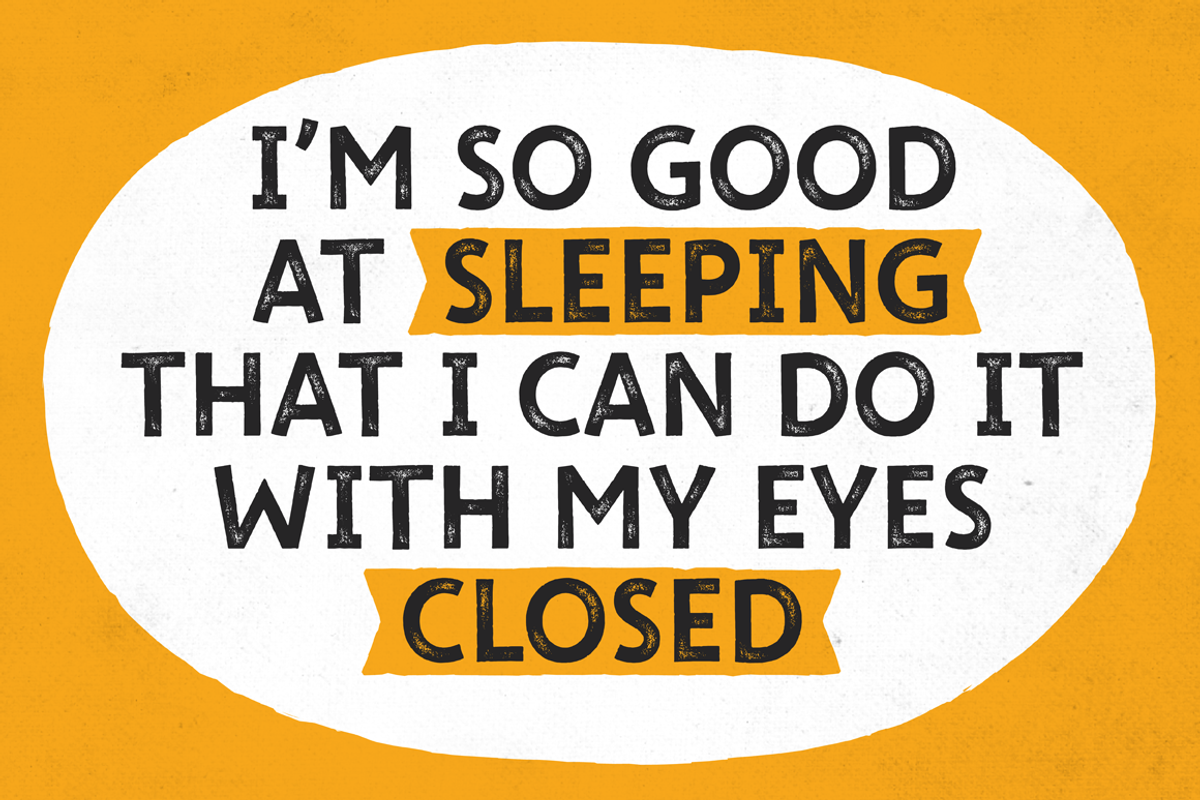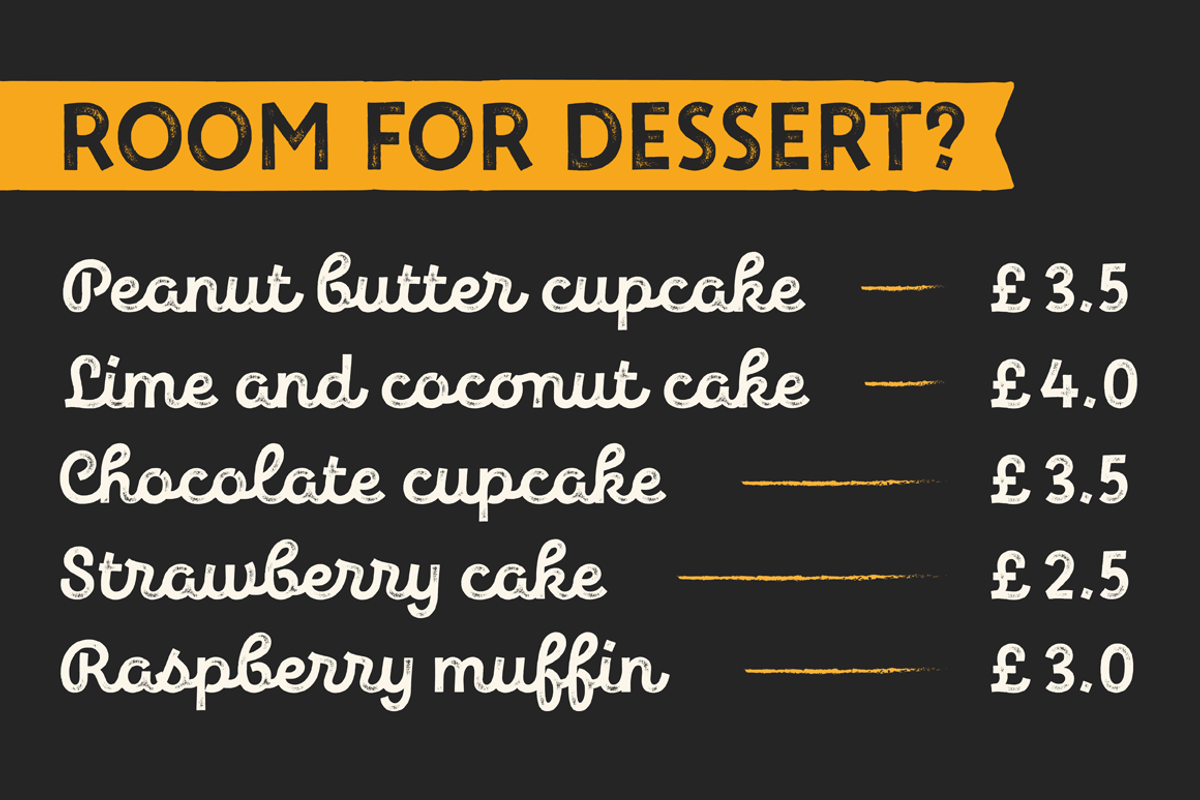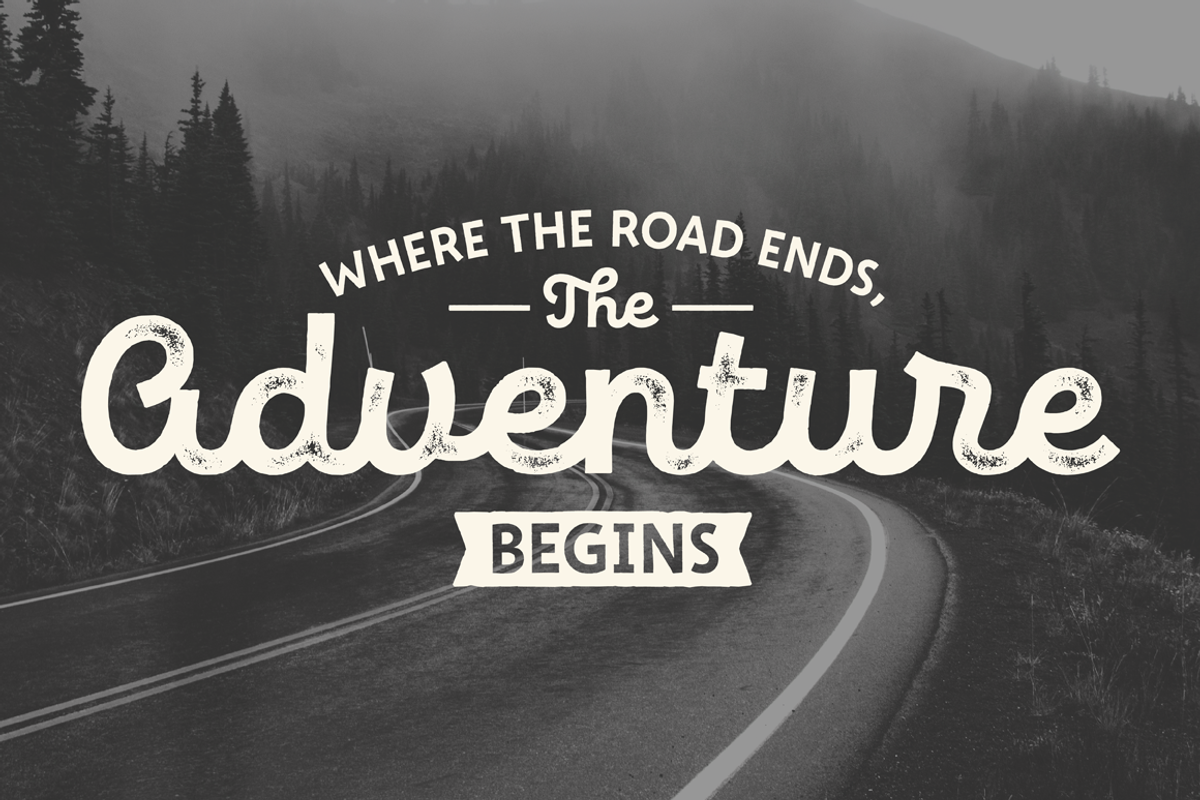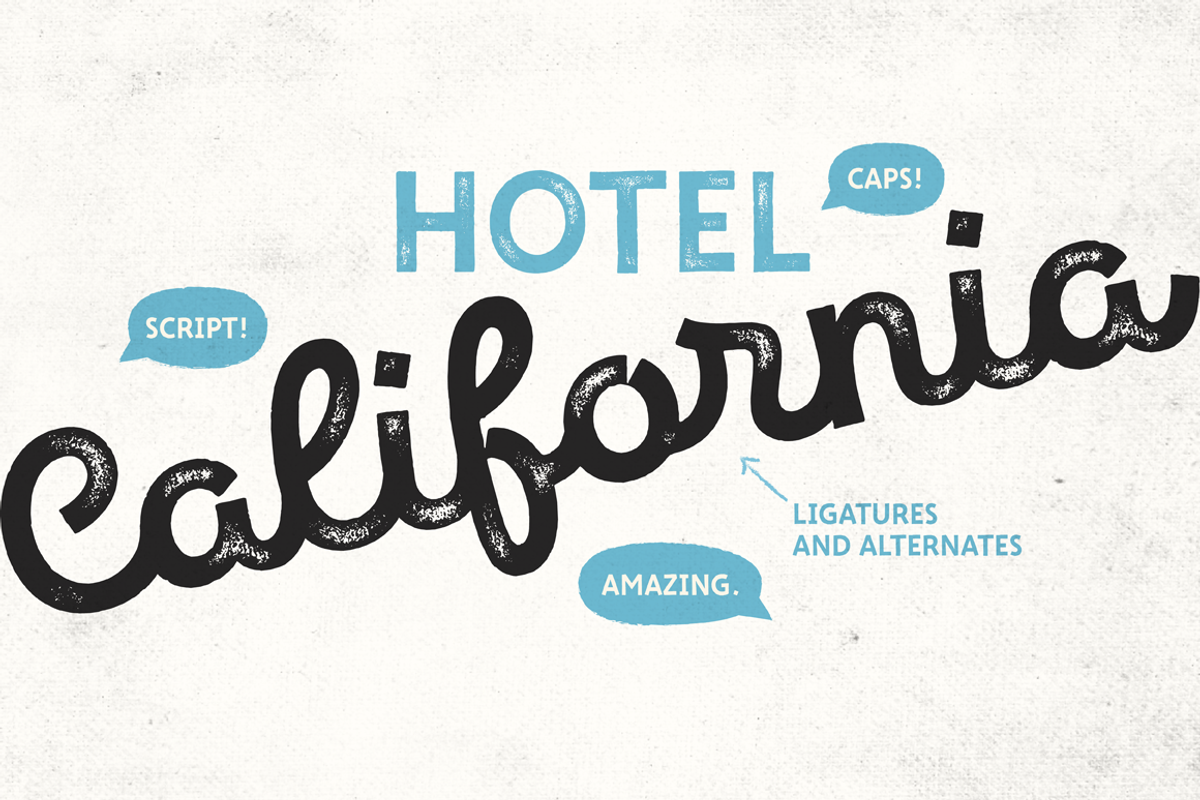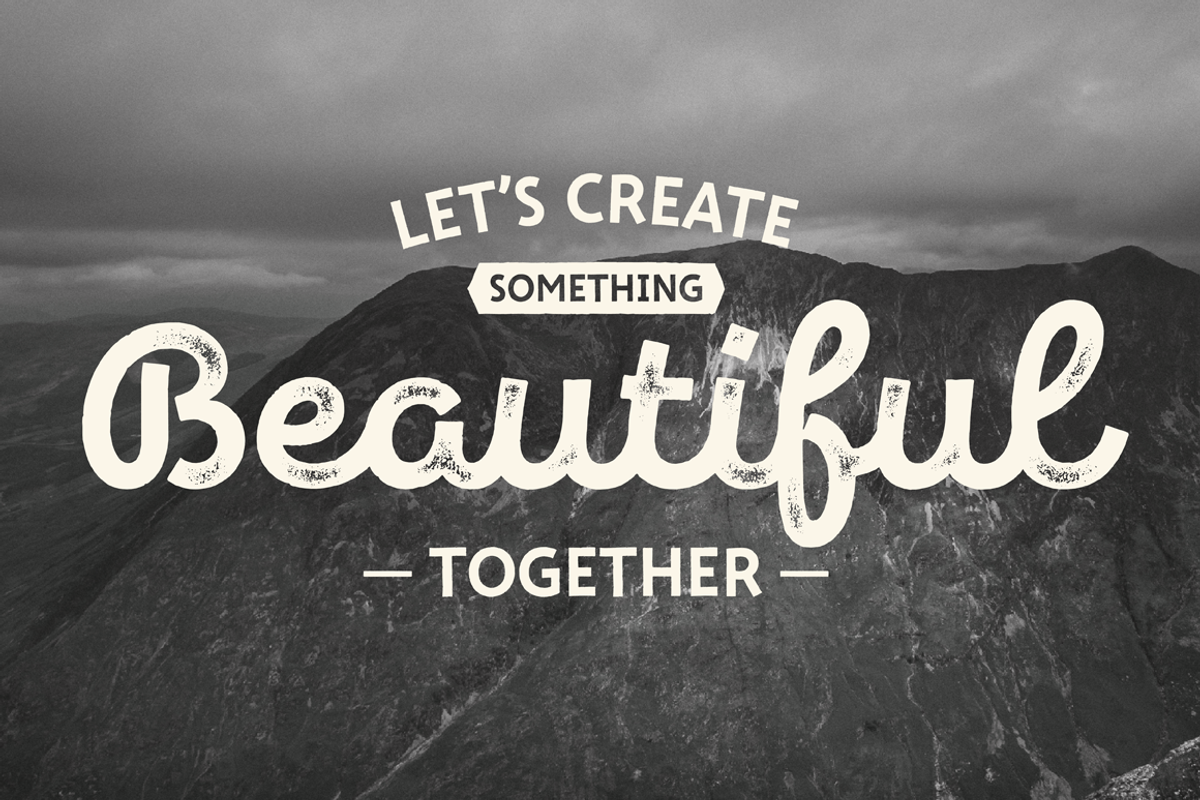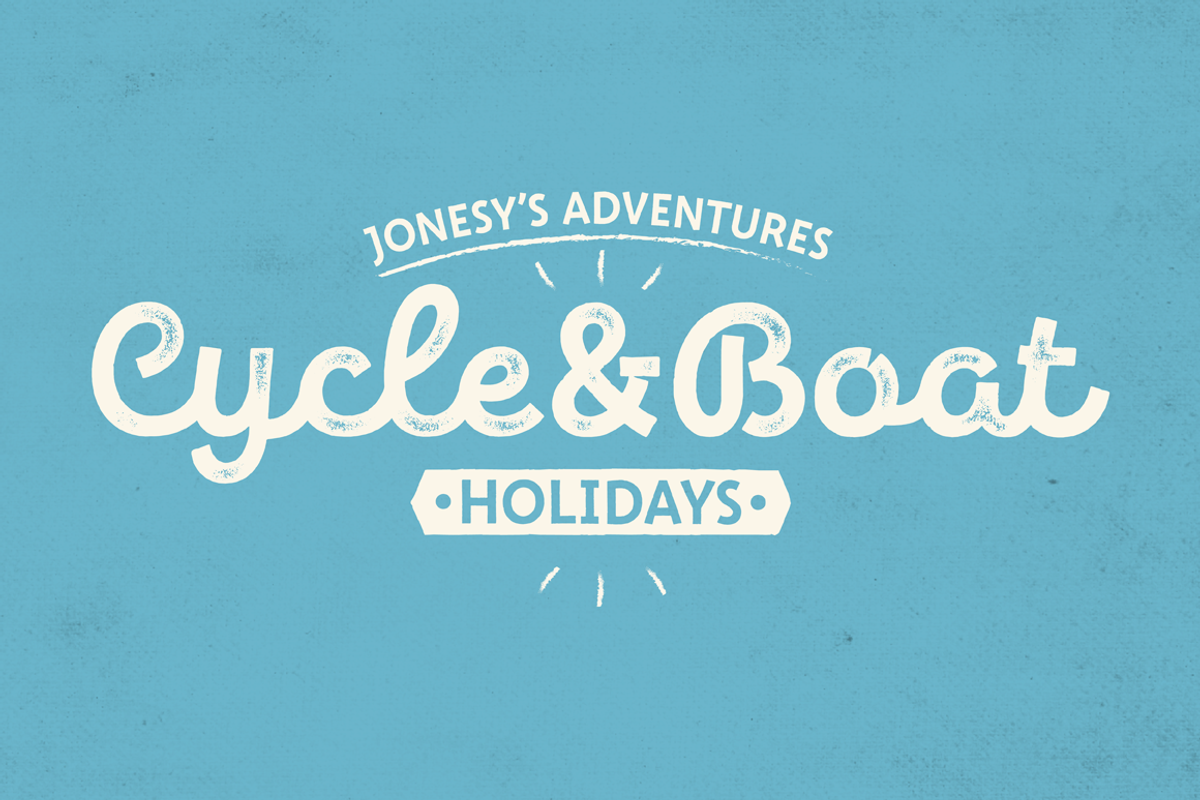
New Jonesy Latin - Font Family
New Jonesy Latin is a rough version of Jonesy typeface. It includes 4 Styles: Print Script, Print Capitals, Rough Script and Rough Capitals for Latin languages. Print Styles work better in middle and large font size.
New Jonesy is a funny modern script with a touch of vintage. It is good for menu, packaging, posters and as a starting point for lettering and logos.
All contextual alternates are built into the “Liga” feature that is turned on by default. However, when your work with the typeface, please make sure that “Liga” is turned on.4
- It includes 4 Styles: Print Script, Print Capitals, Rough Script and Rough Capitals for Latin languages.
- All contextual alternates are built into the “Liga” feature that is turned on by default.